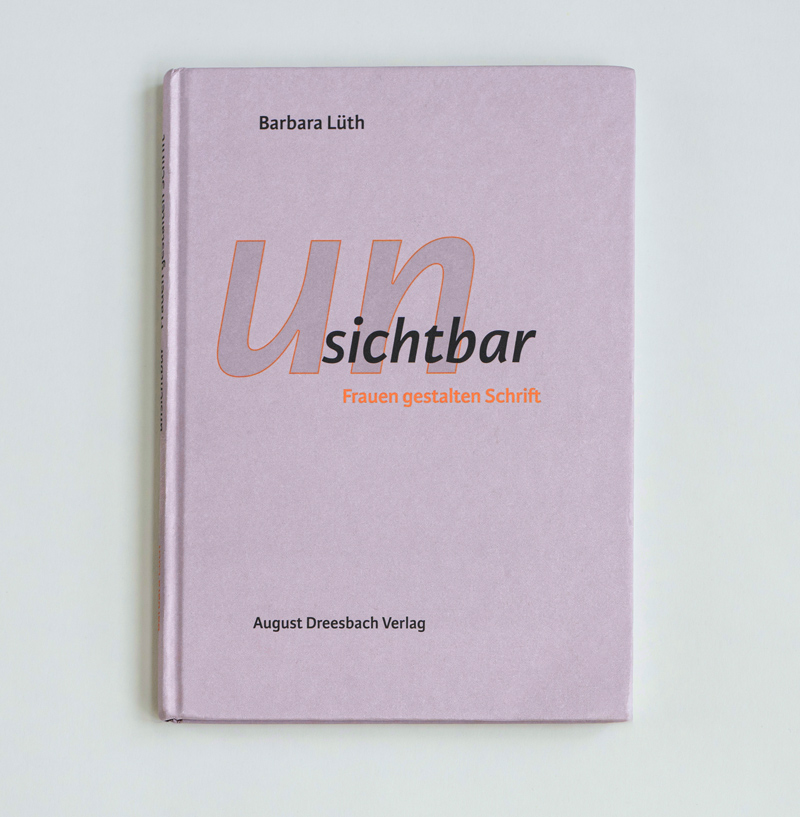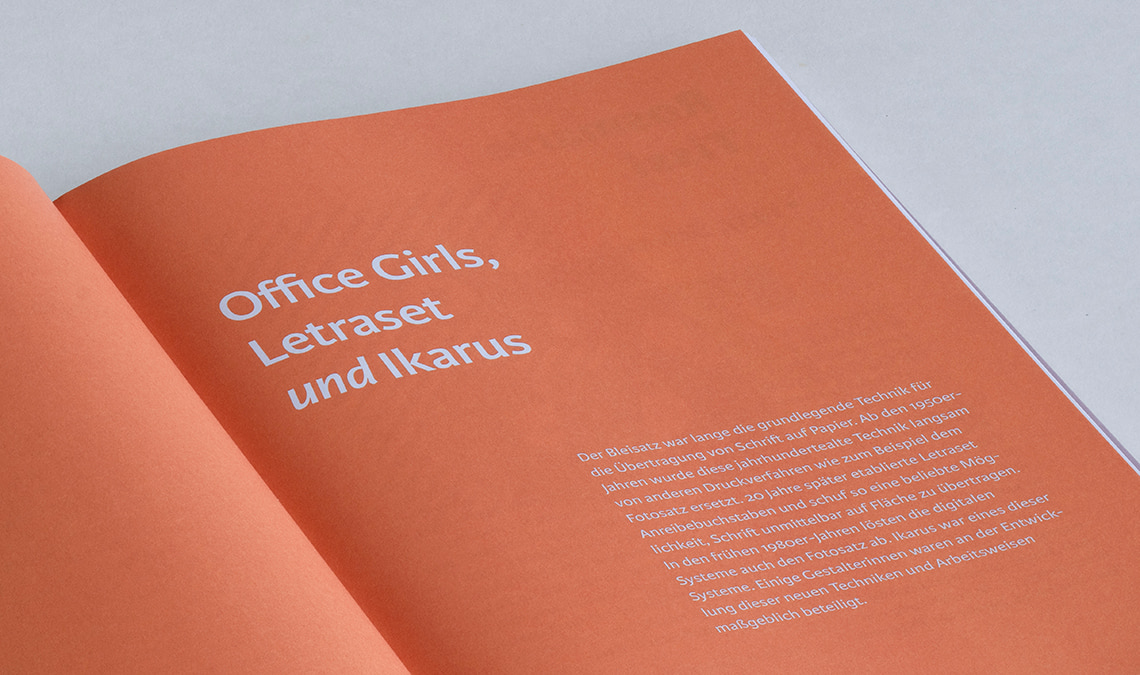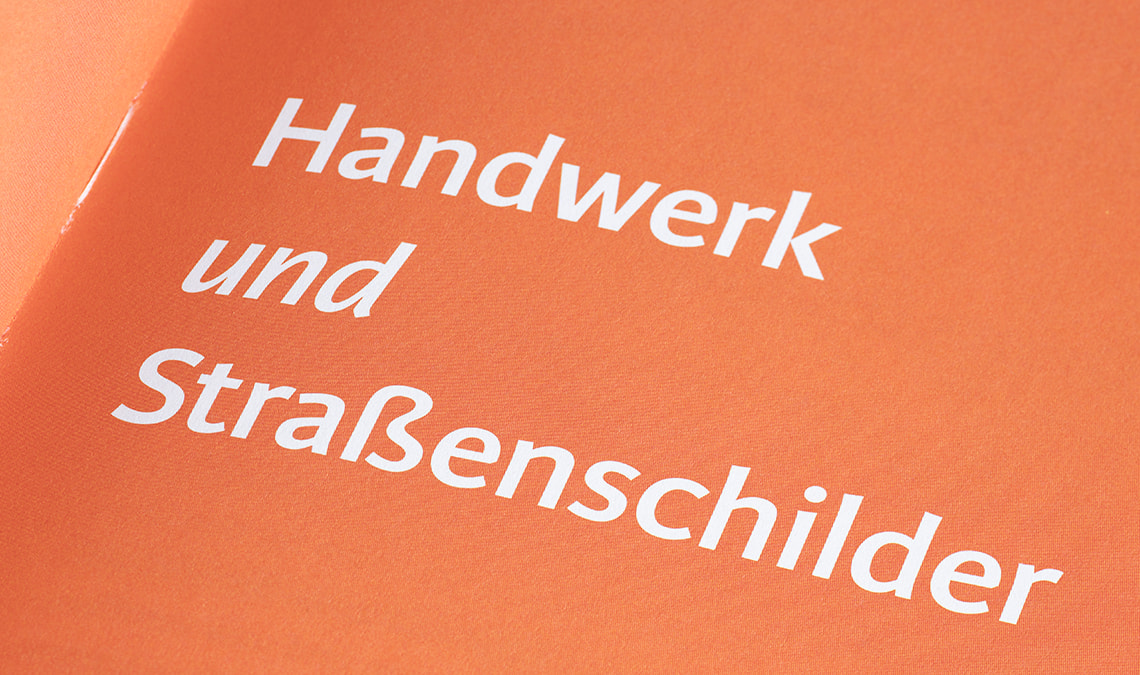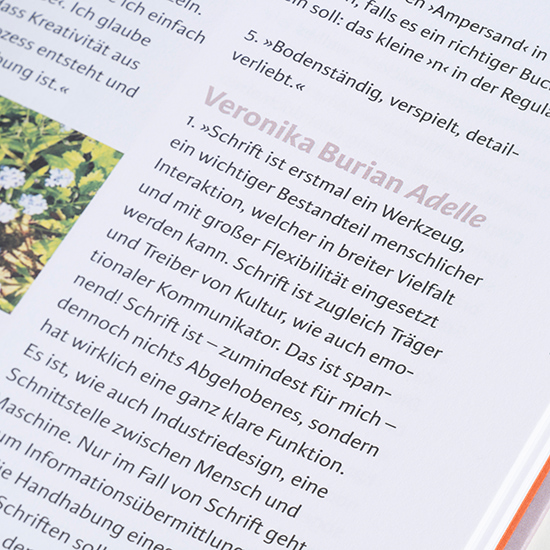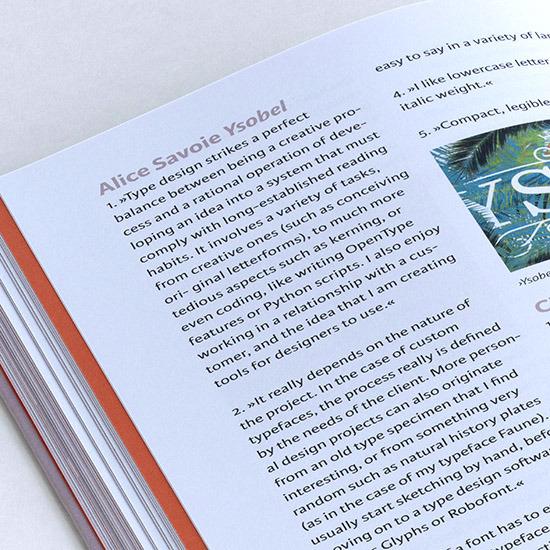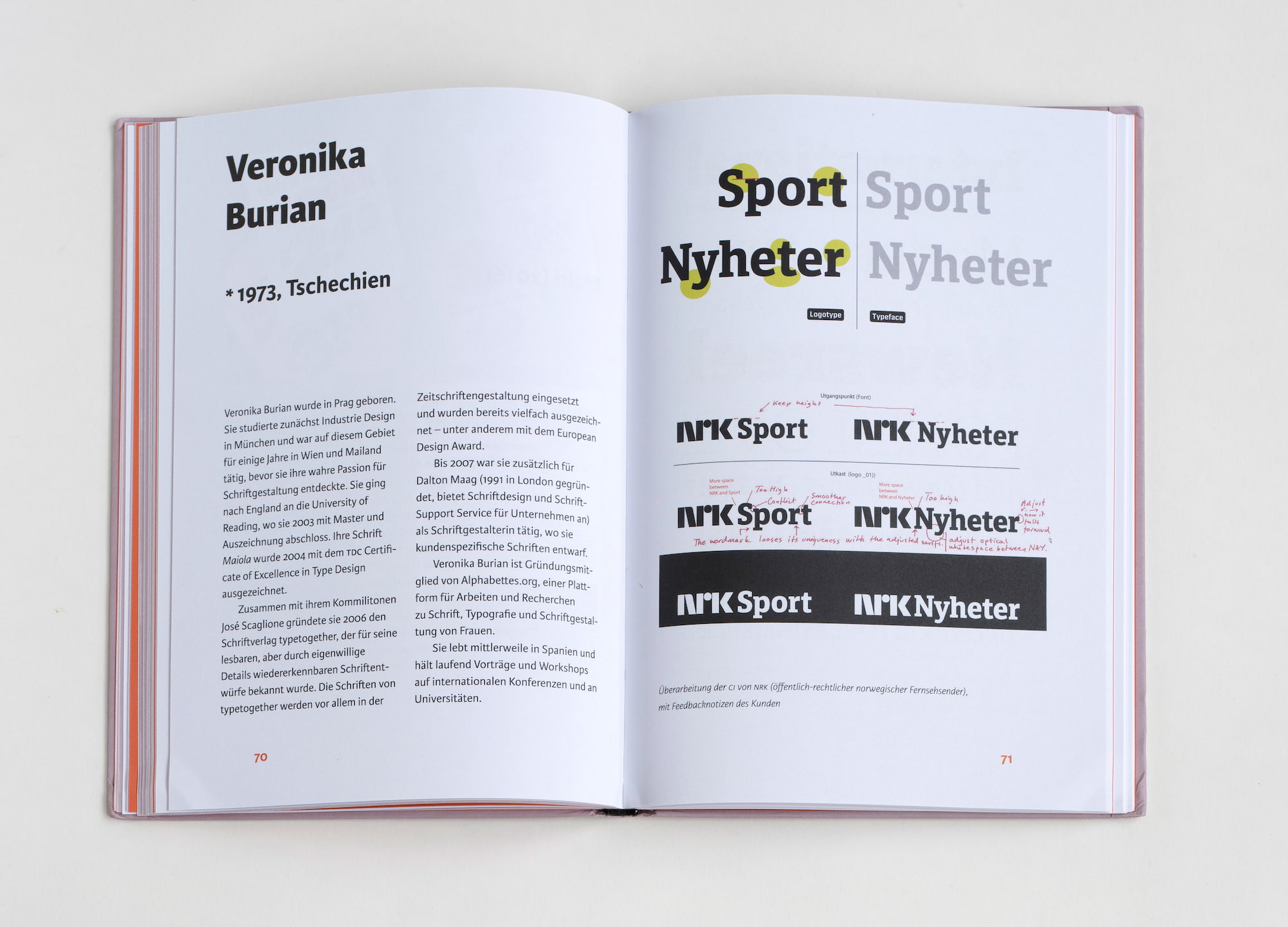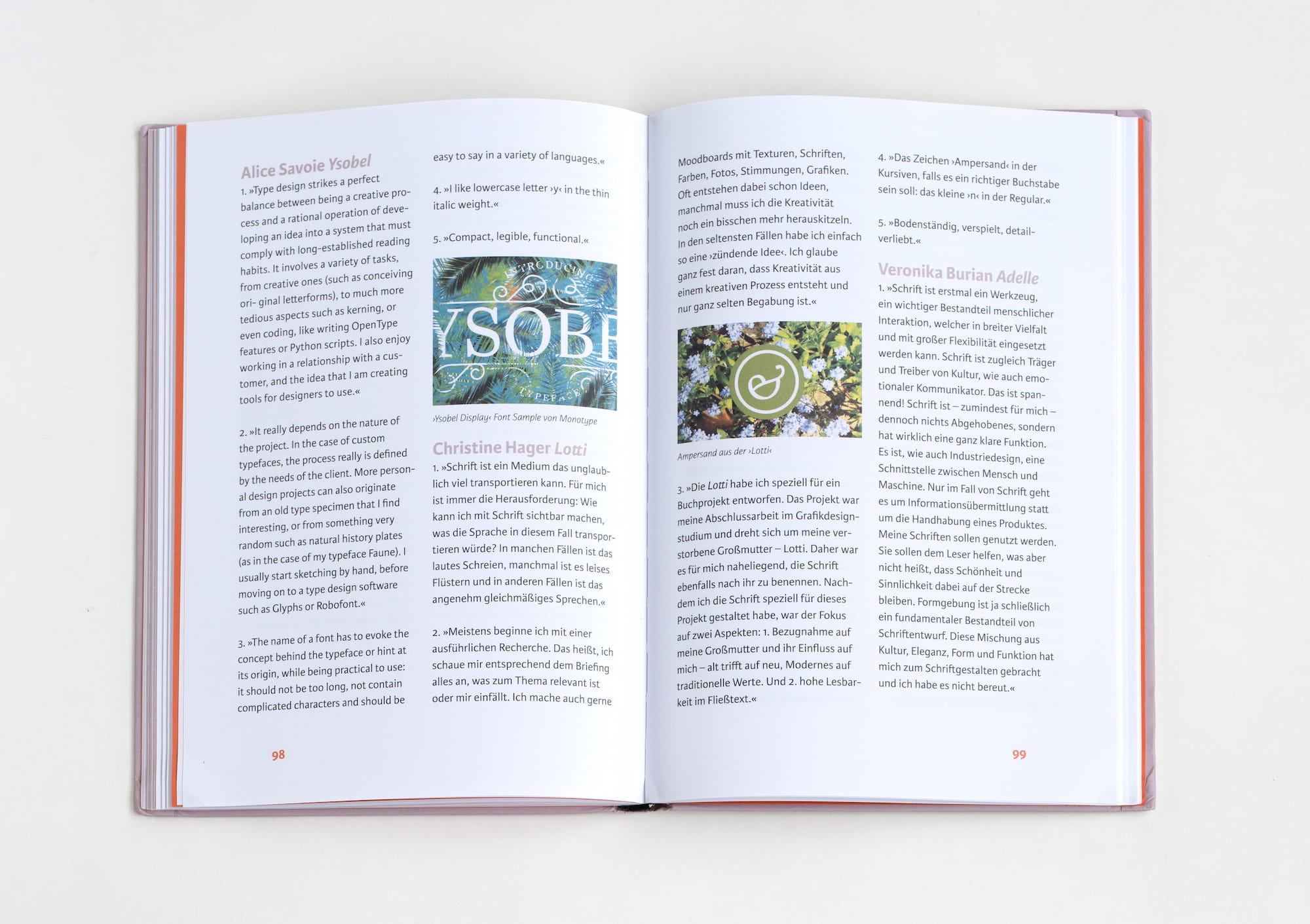
Karmina Sans in book use, Unsichtbar: Frauen gestalten Schrift
Author and designer Barbara Lüth has chosen Karmina Sans to typeset the book Unsichtbar: Frauen gestalten Schrift that asks, “Where are the women in type design?”
“Where are the women in type design?” This is a question we often hear, and one we ask ourselves just as much. In this book of insight into the lives and work of 20 female type designers, Barbara Lüth covers these questions and many other subjects.
Unsichtbar is divided in two sections. In the first part, the author clearly explains how these women and their significant contributions have influenced the field of type design since the beginning of the 20th century — but without receiving the attention they deserve, as the category was mostly dominated by men at that time.
In the second part, some type designers have their say and answer five questions from the author about their work, including the creation process, aesthetic and business values, and anecdotes about their favorite letter. The book aims to do one thing above all else: to visibly champion the lives and work of these outstanding women.
Karmina Sans has been extensively used throughout the publication: from the cover design to the titles, text, and captions. The versatile and vivid text face comes in 12 humanistic styles that work well on screens and in print. The medium weights are meant for easy reading and the extreme weights at both ends of the spectrum are intended for headlines and corporate identity programs.